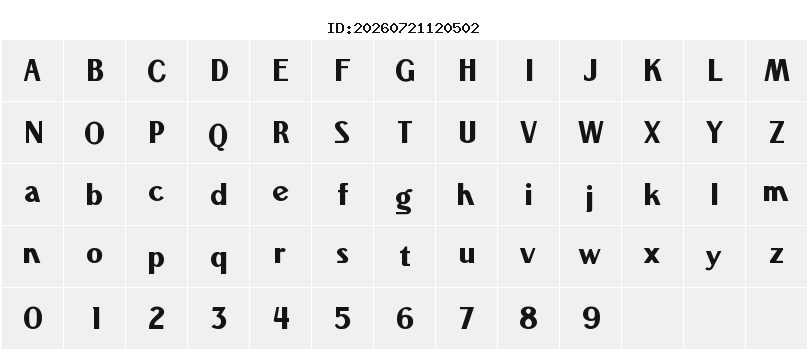
Fisher-Price Gothic Preview
• Font Name: Fisher-Price Gothic
• Full Font Name: Fisher-Price Gothic
• Version: Version 1.50 January 25, 2016, initial release
About Fisher-Price Gothic.ttf
Fisher-Price Gothic.ttf is a modern, elegant sans-serif font designed for ultimate readability and visual harmony. Perfect for branding, headlines, web design, and print materials.